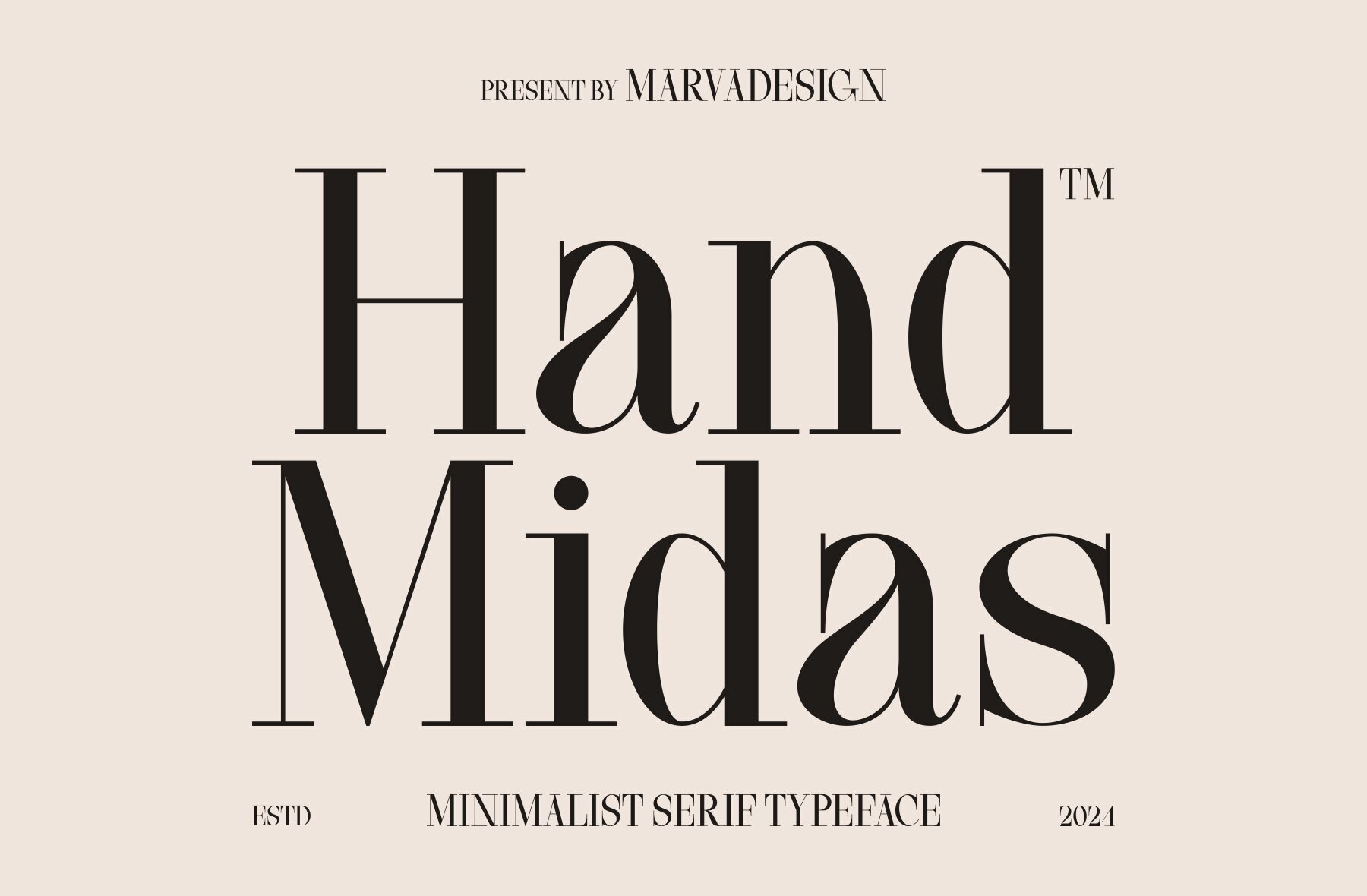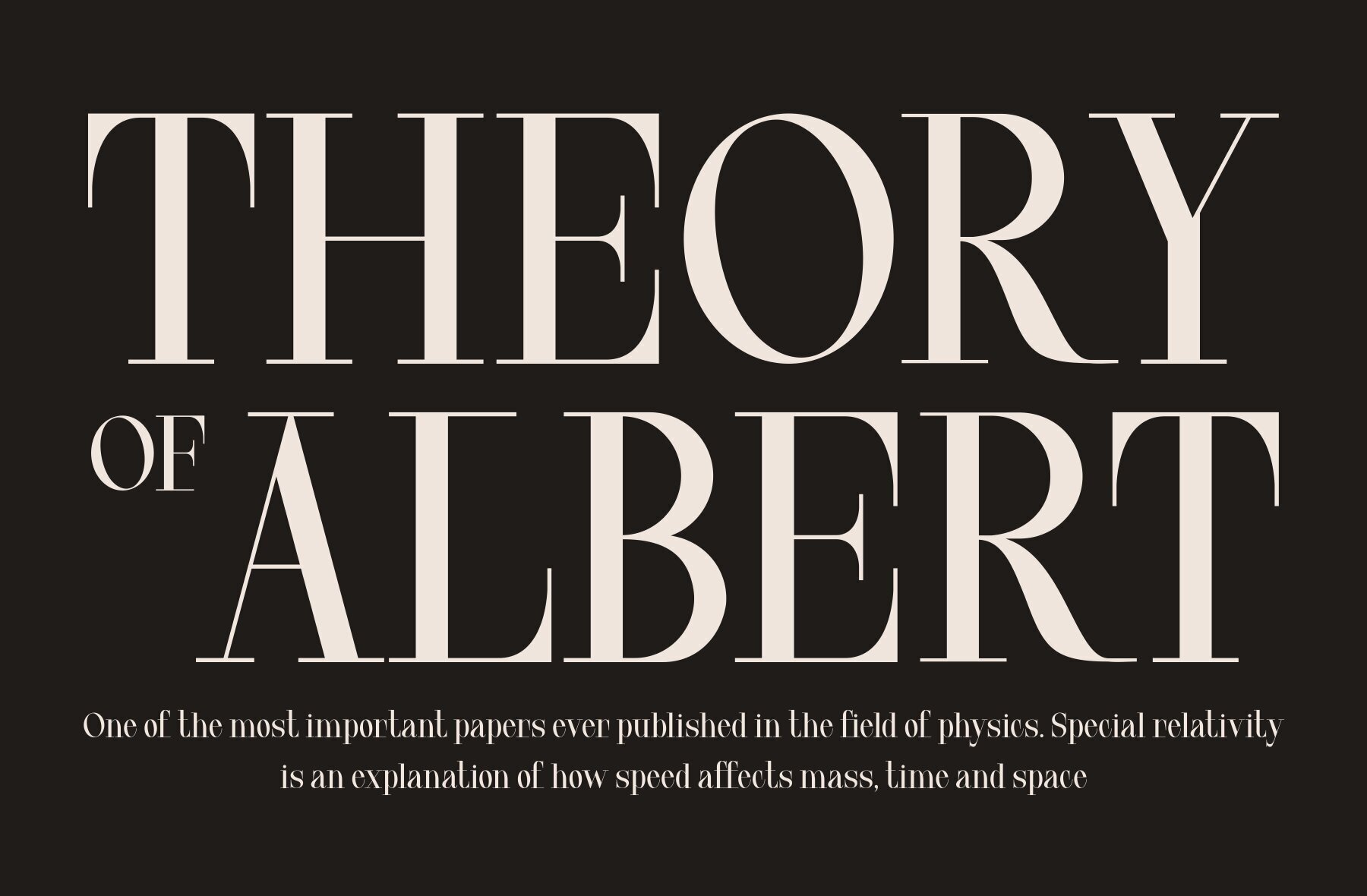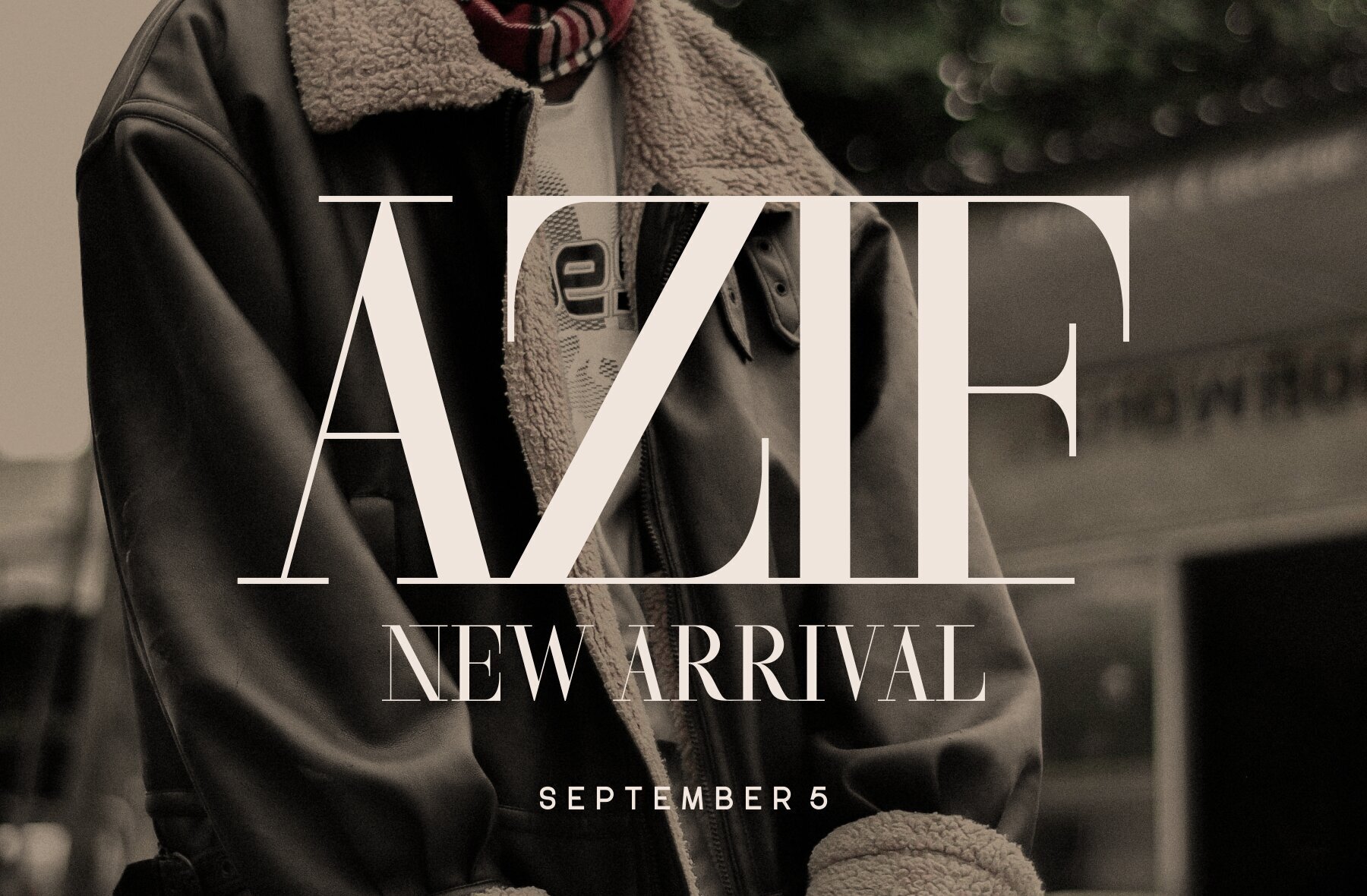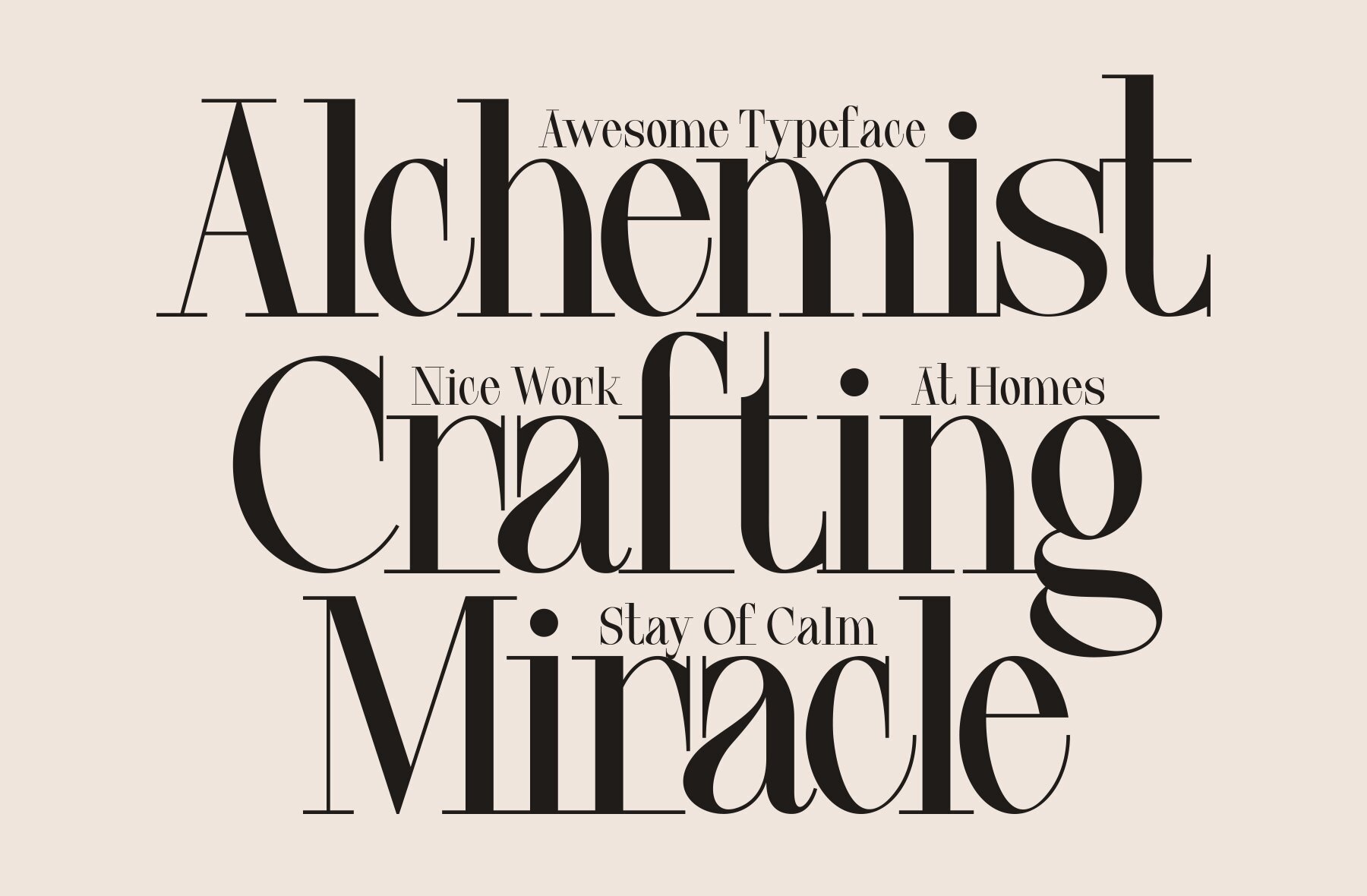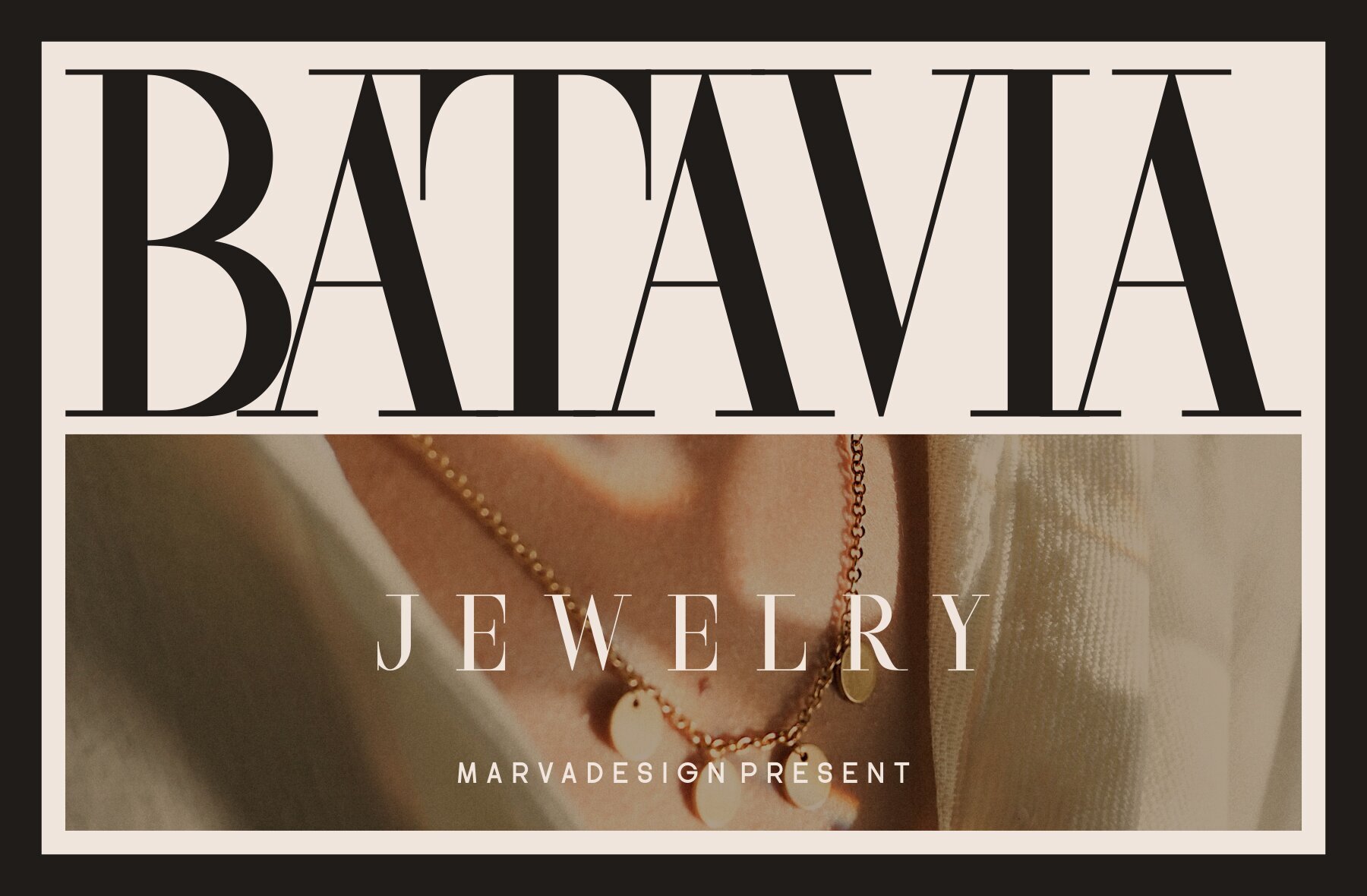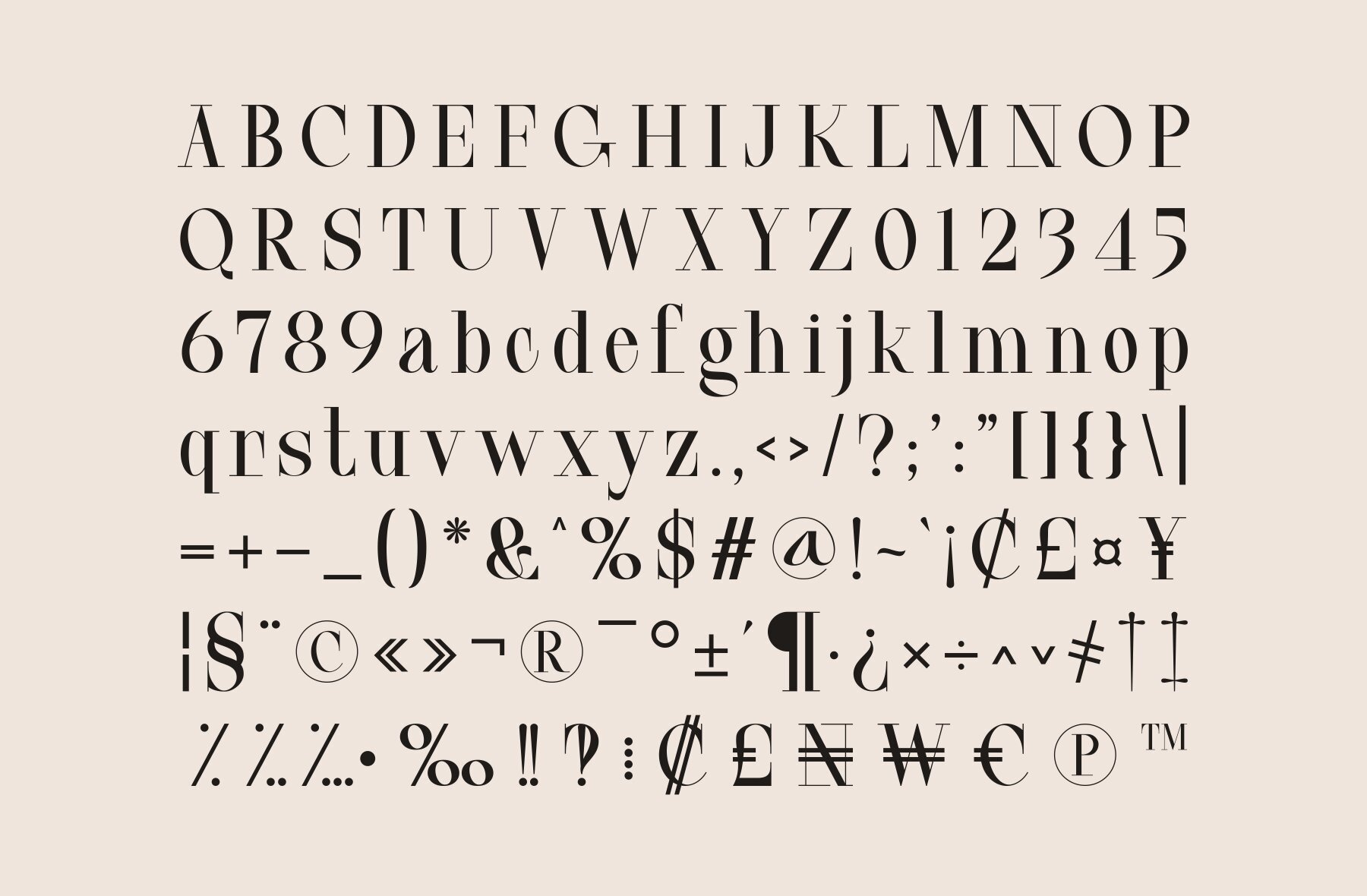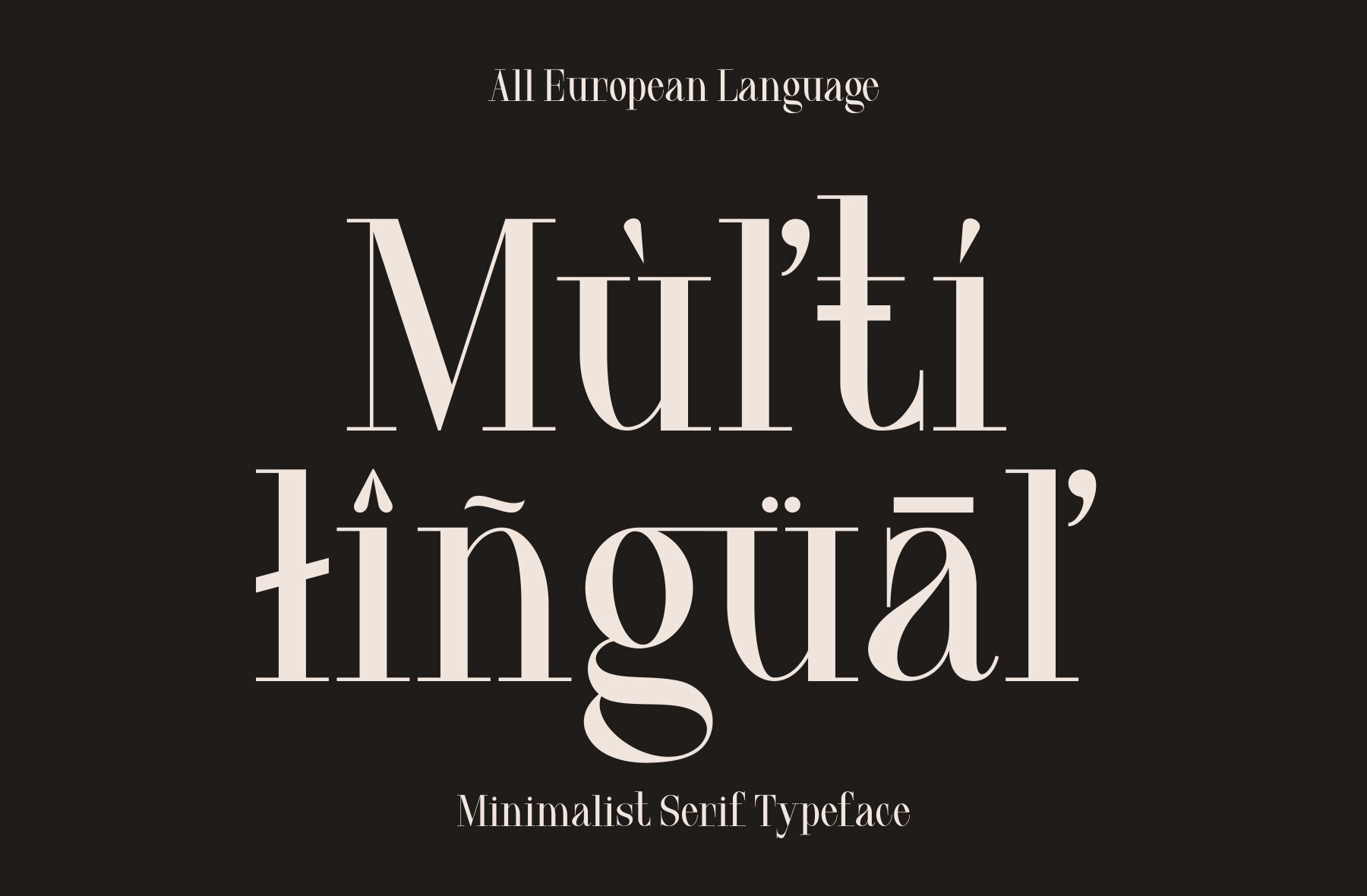
Hand Midas Font
Hand Midas Regular
This typeface boasts a modern yet classic look with a high-contrast design that's geared towards luxury and fashion editorial work. The pronounced serifs and the sharp, clean finish make it ideal for large displays and sophisticated branding. Its Didone characteristics, with vertical stress and minimal bracketing, underscore its contemporary elegance.